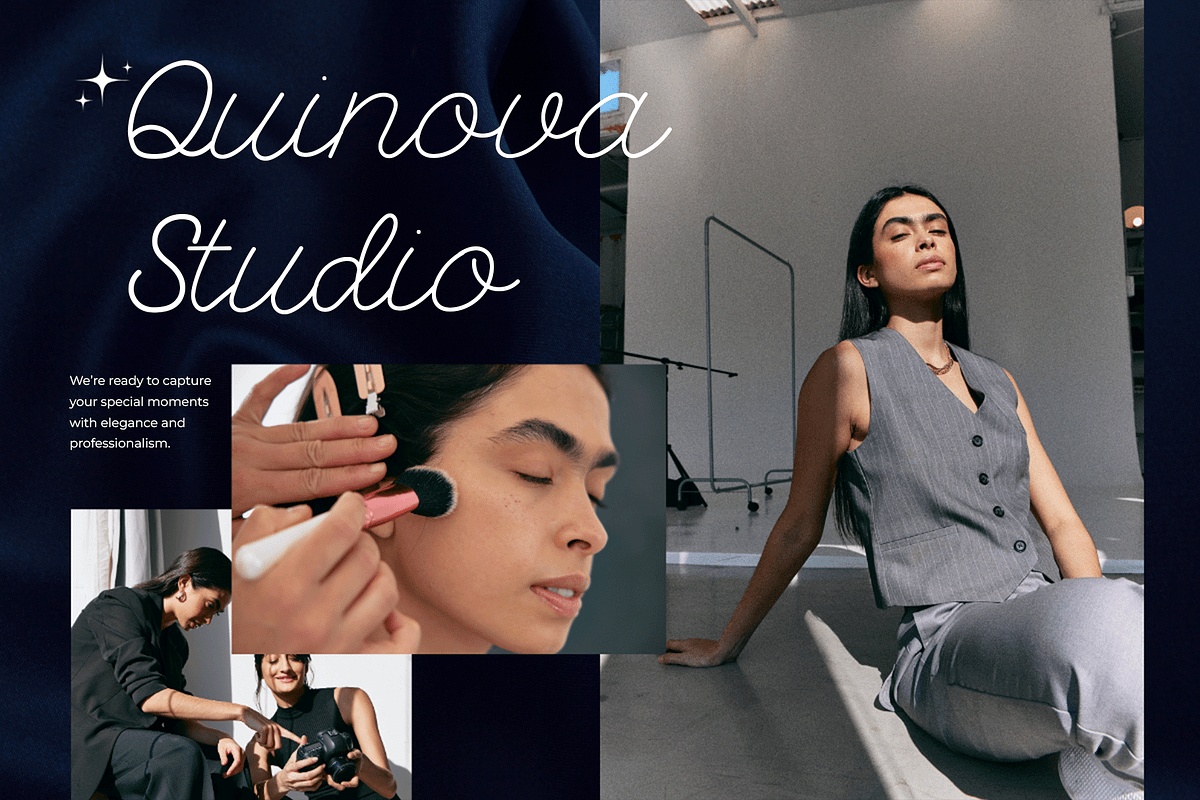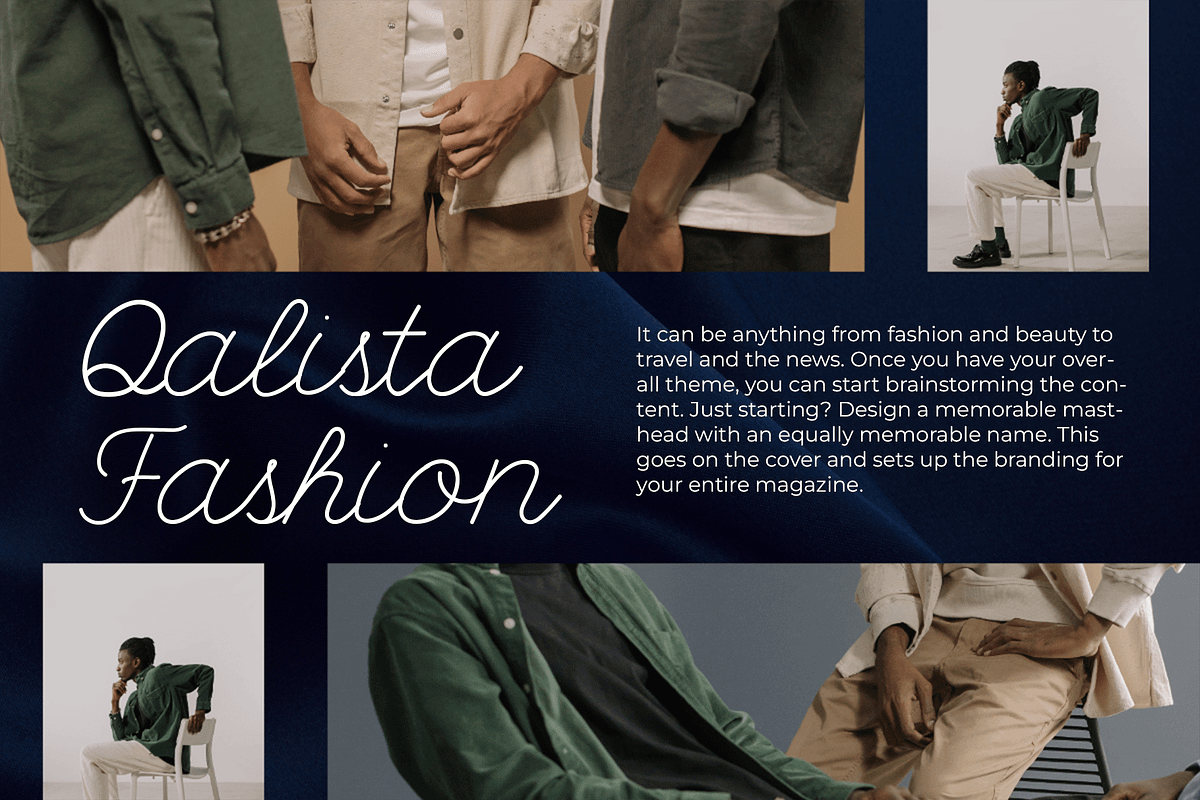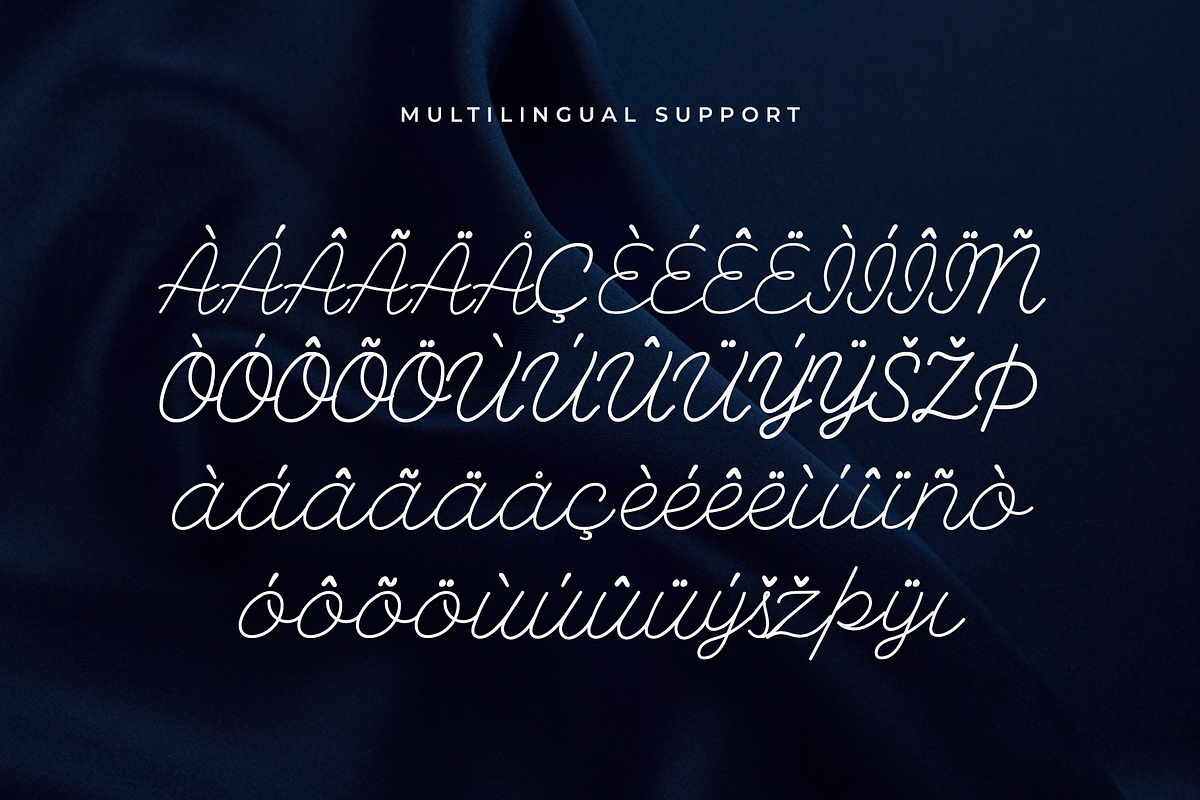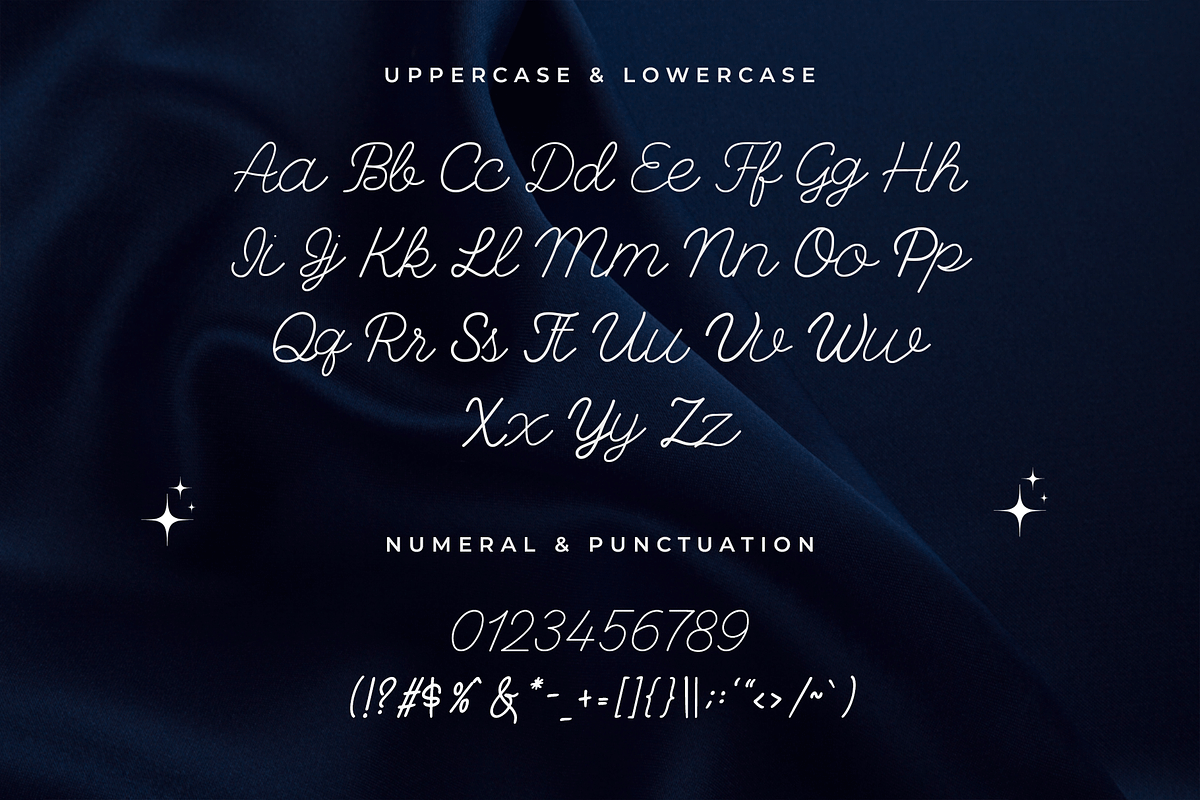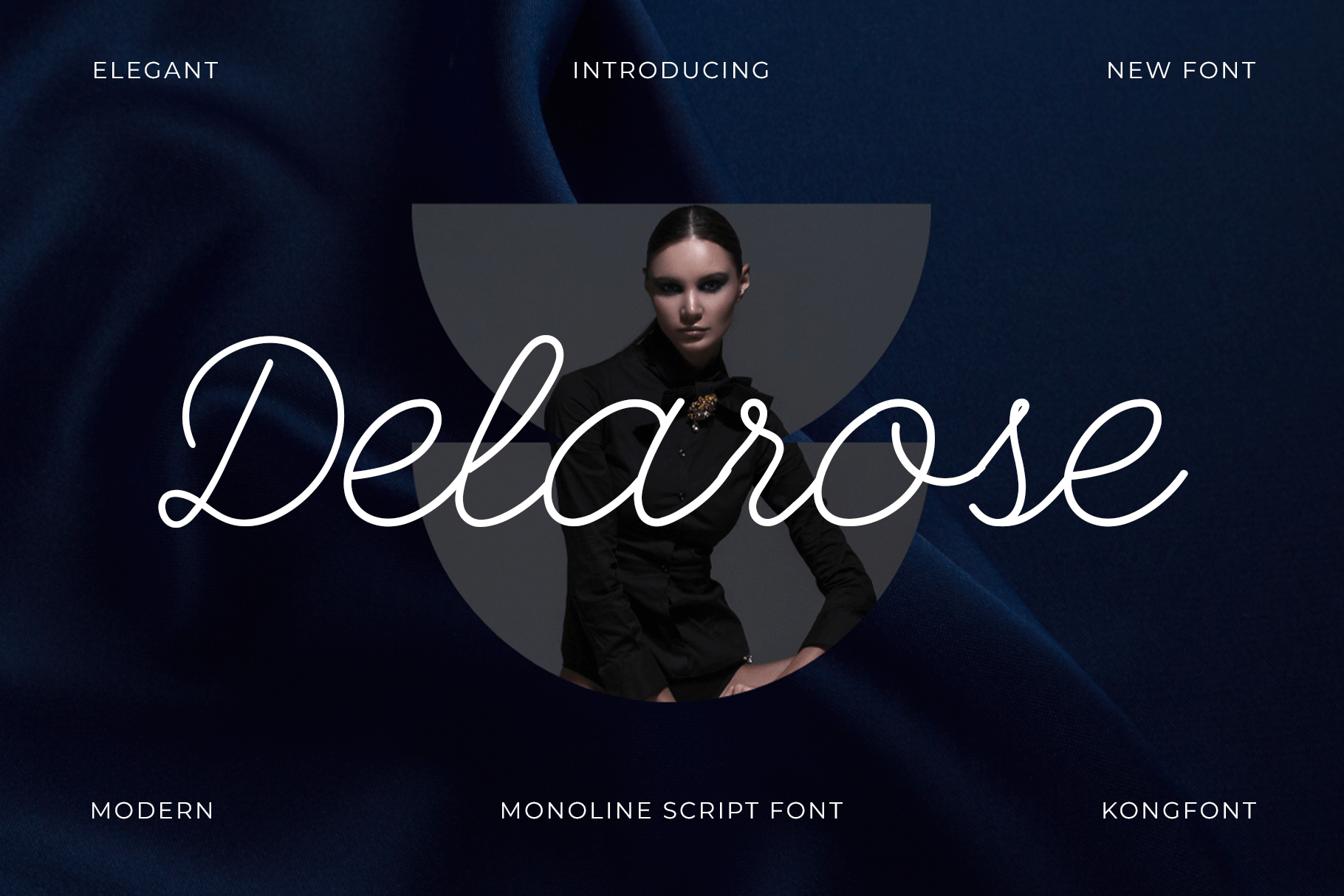
Delarose – A Monoline Script Font
Delarose is a beautifully crafted monoline script font that exudes elegance, simplicity, and timeless charm. Designed with clean, fluid lines and smooth curves, this typeface is perfect for adding a personal and stylish touch to your design projects.
Whether you’re working on wedding invitations, logos, branding, social media posts, or handwritten quotes, Delarose delivers a sophisticated and friendly appeal. Its consistent line weight and natural flow make it easy to read while maintaining an authentic handwritten feel.
Bring warmth and grace to your typography with Delarose, the ideal choice for projects that require a touch of handcrafted beauty and refined minimalism.